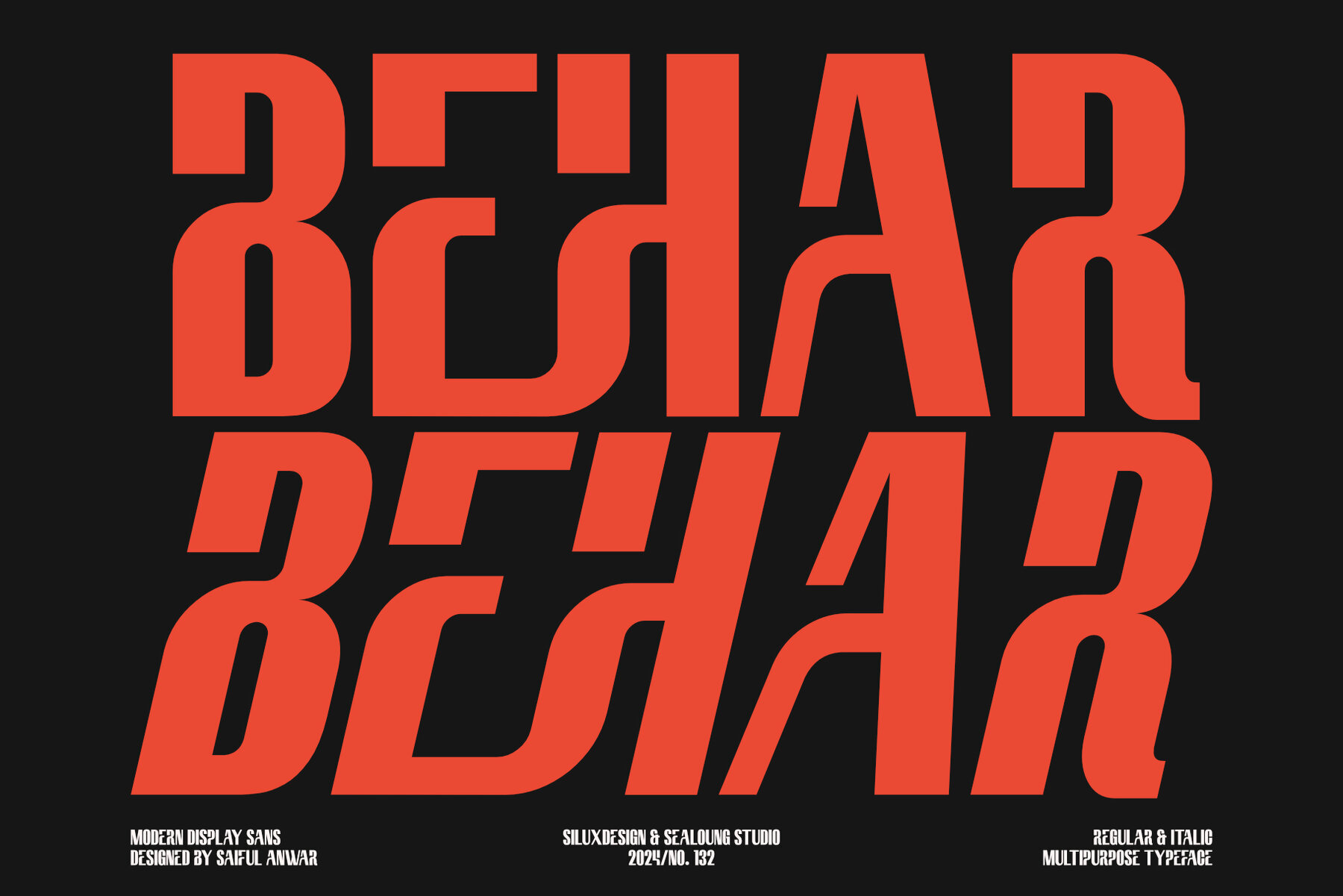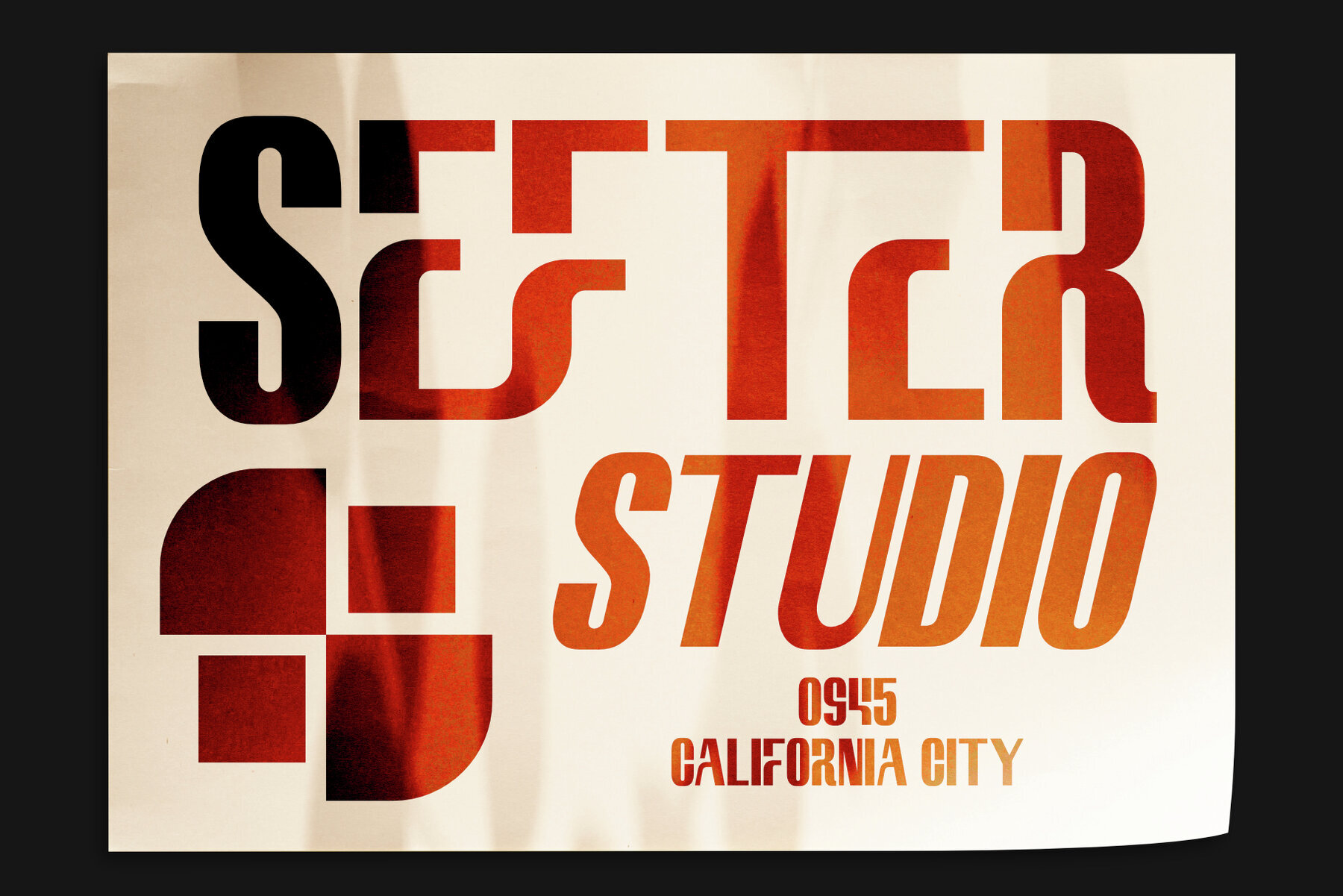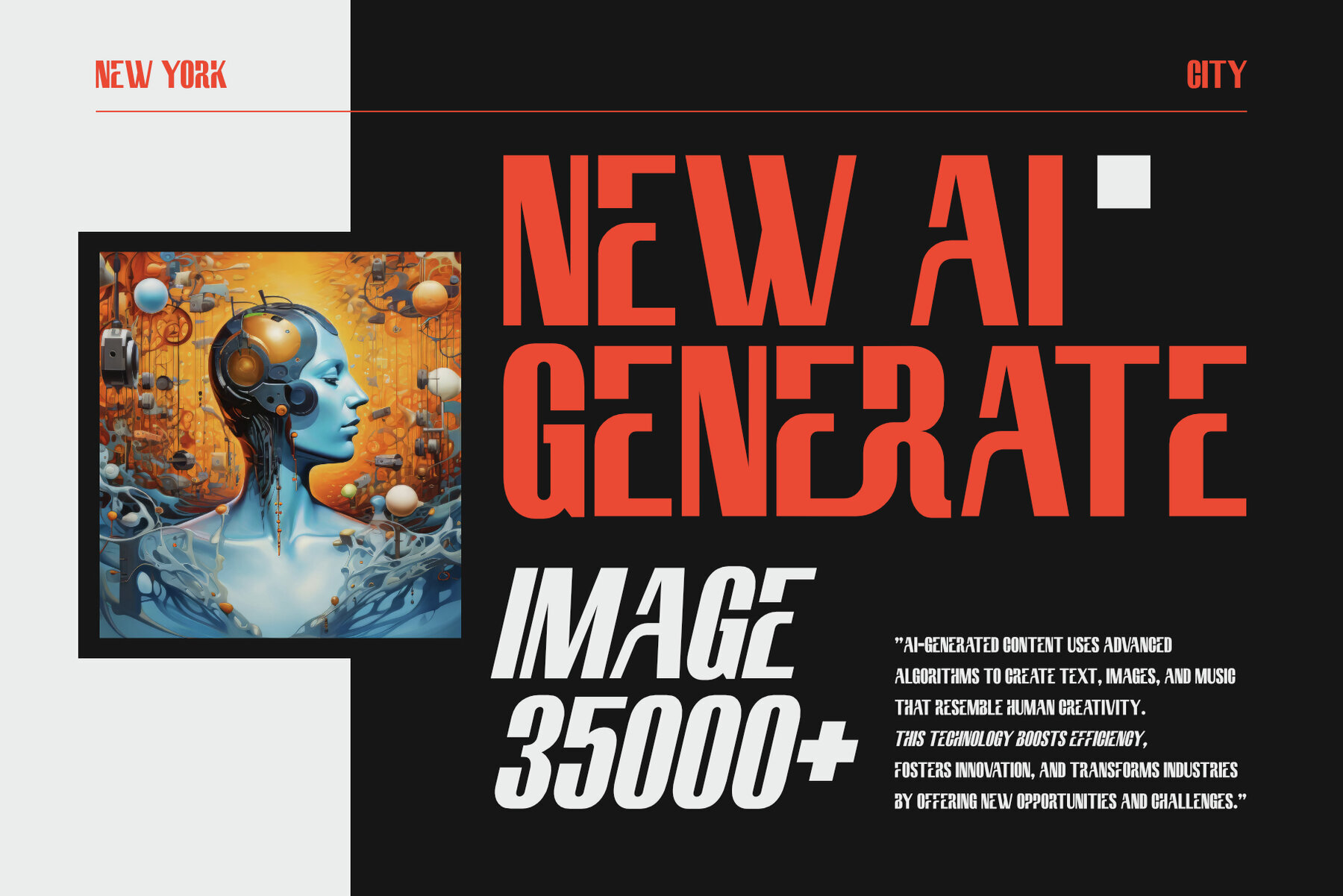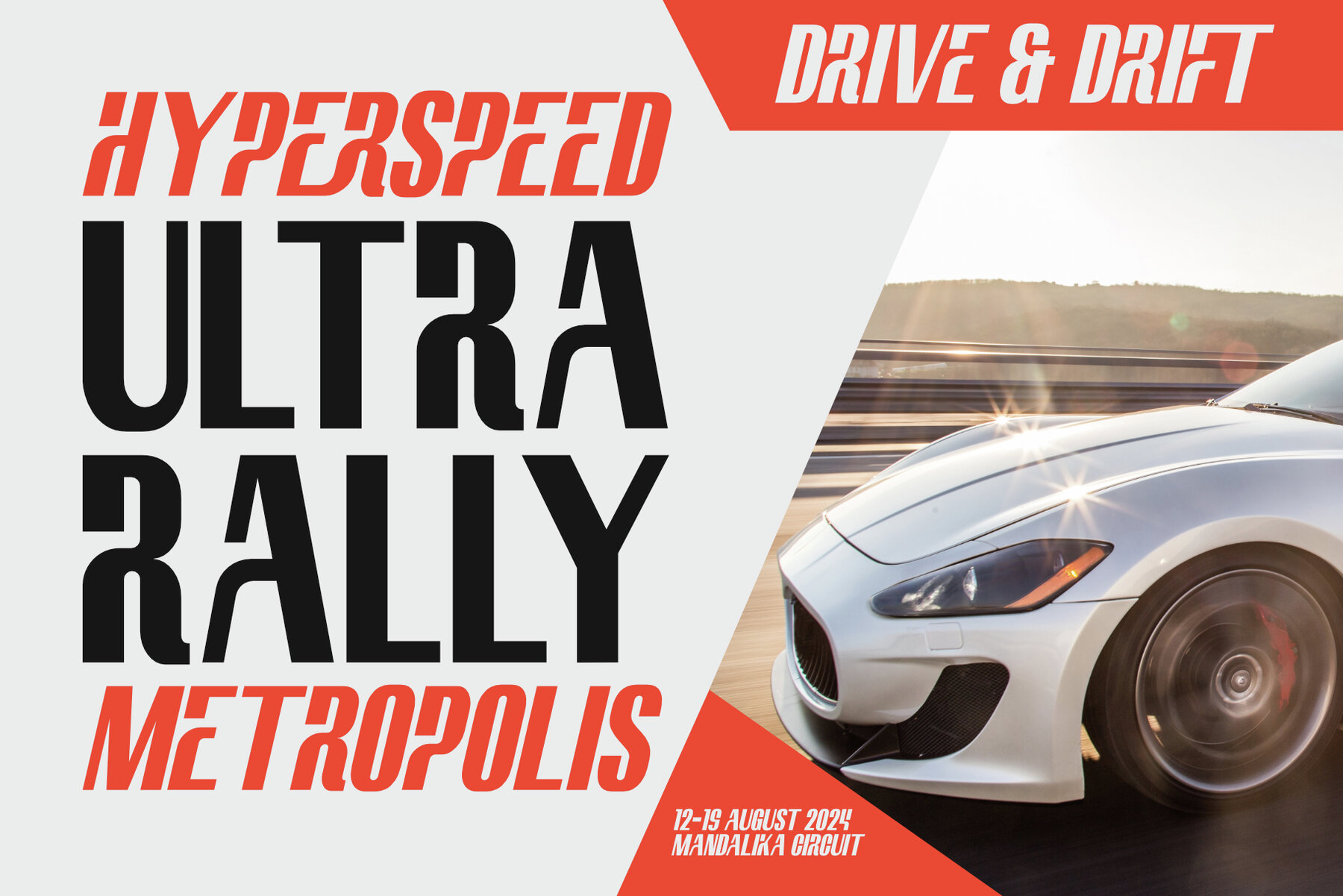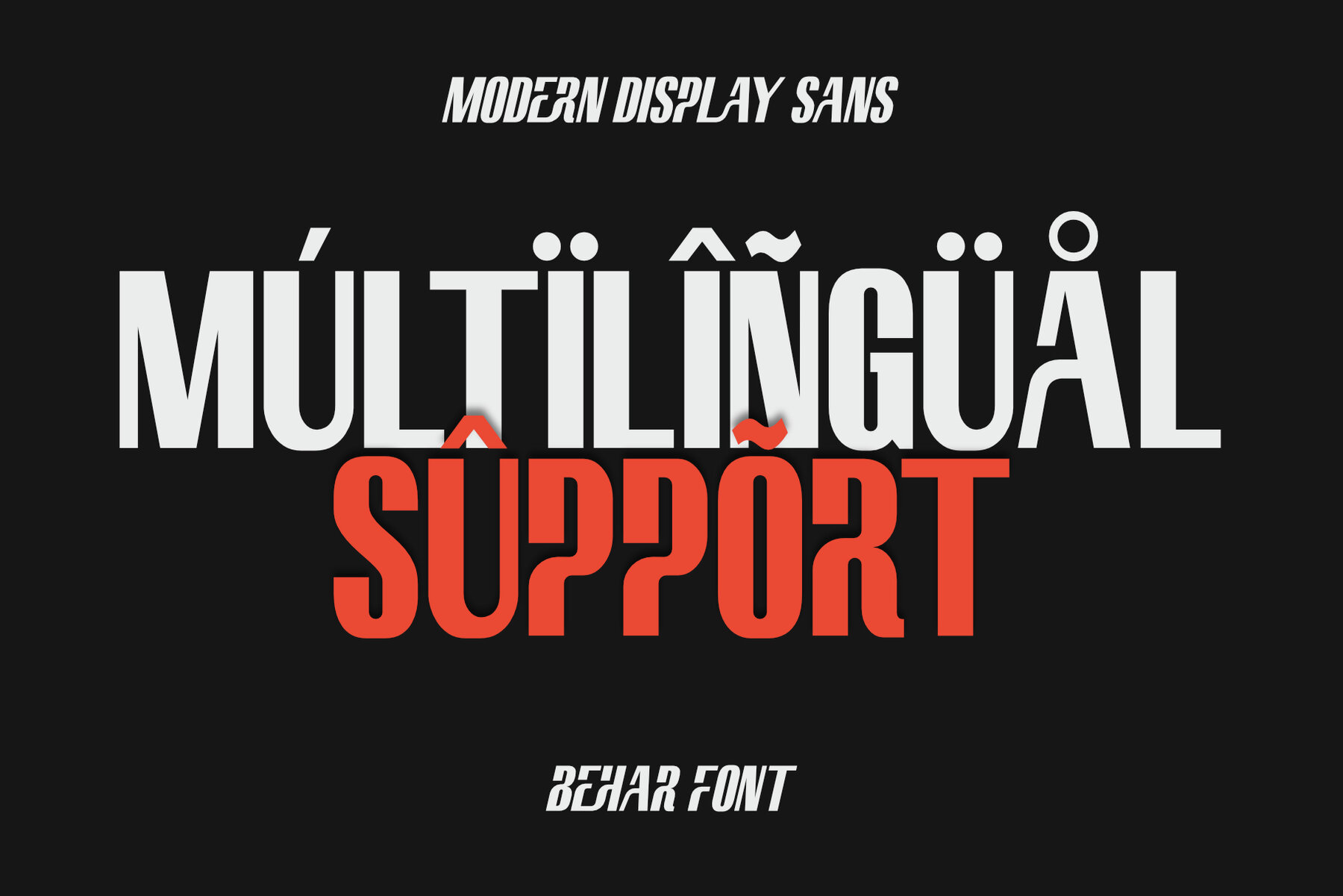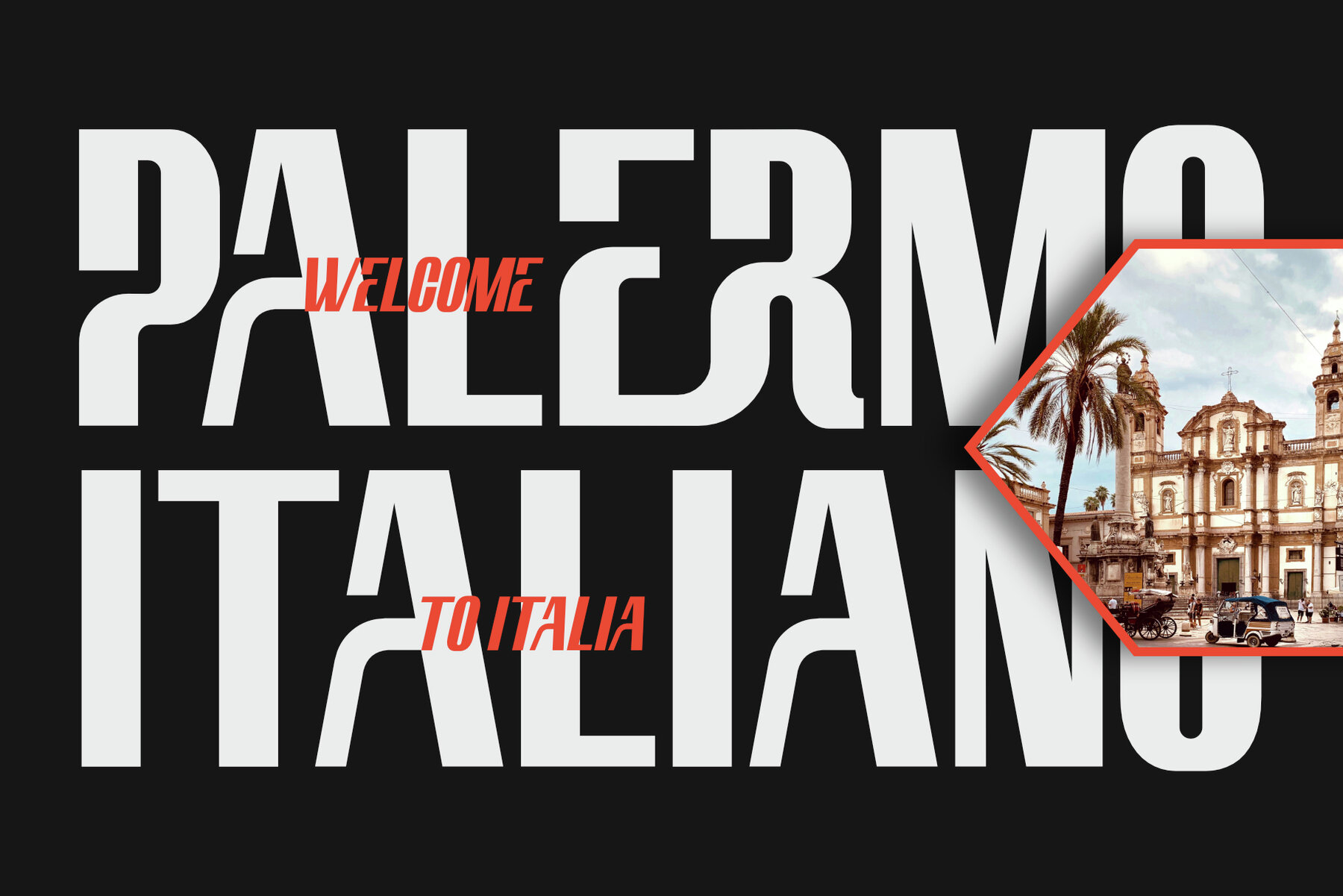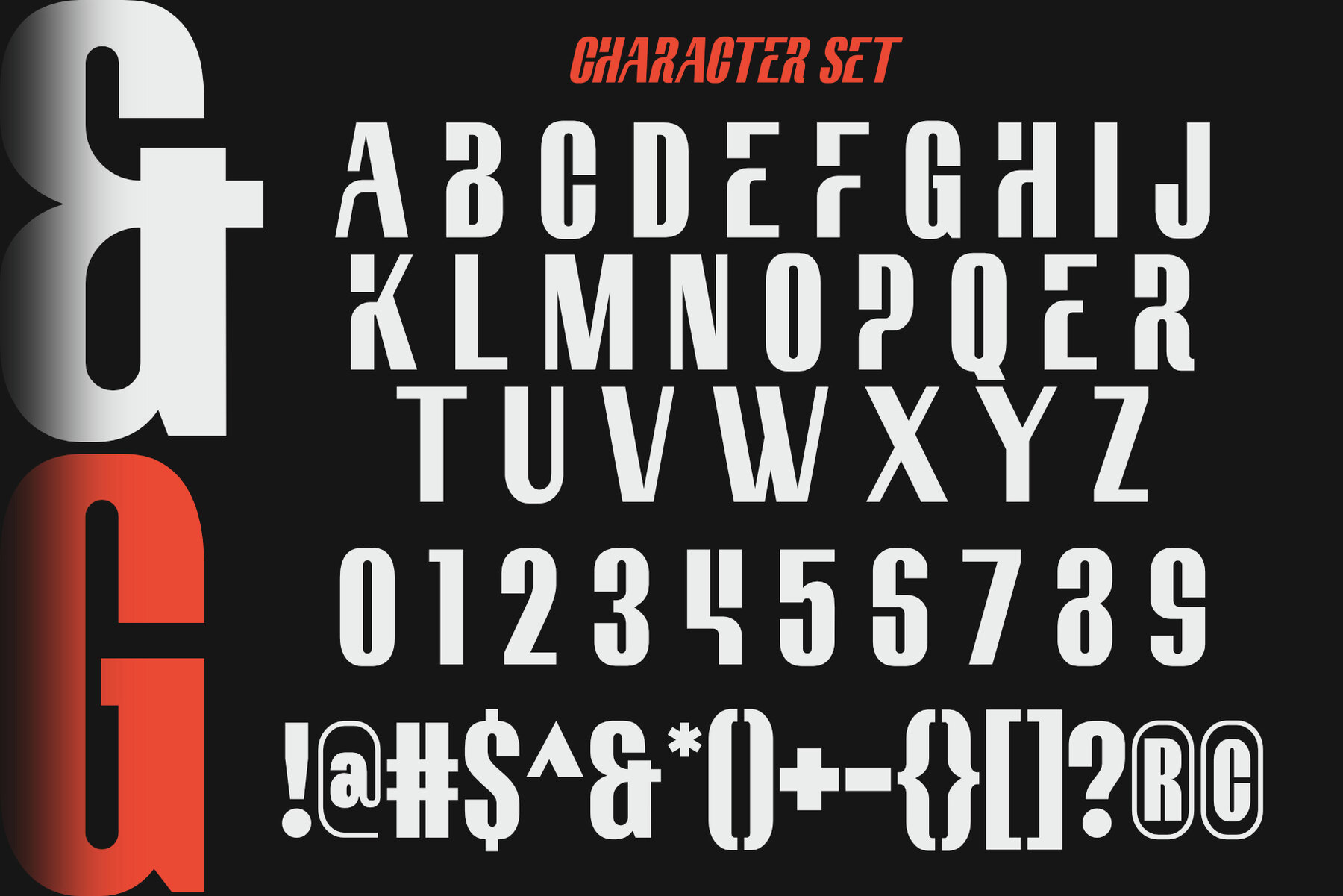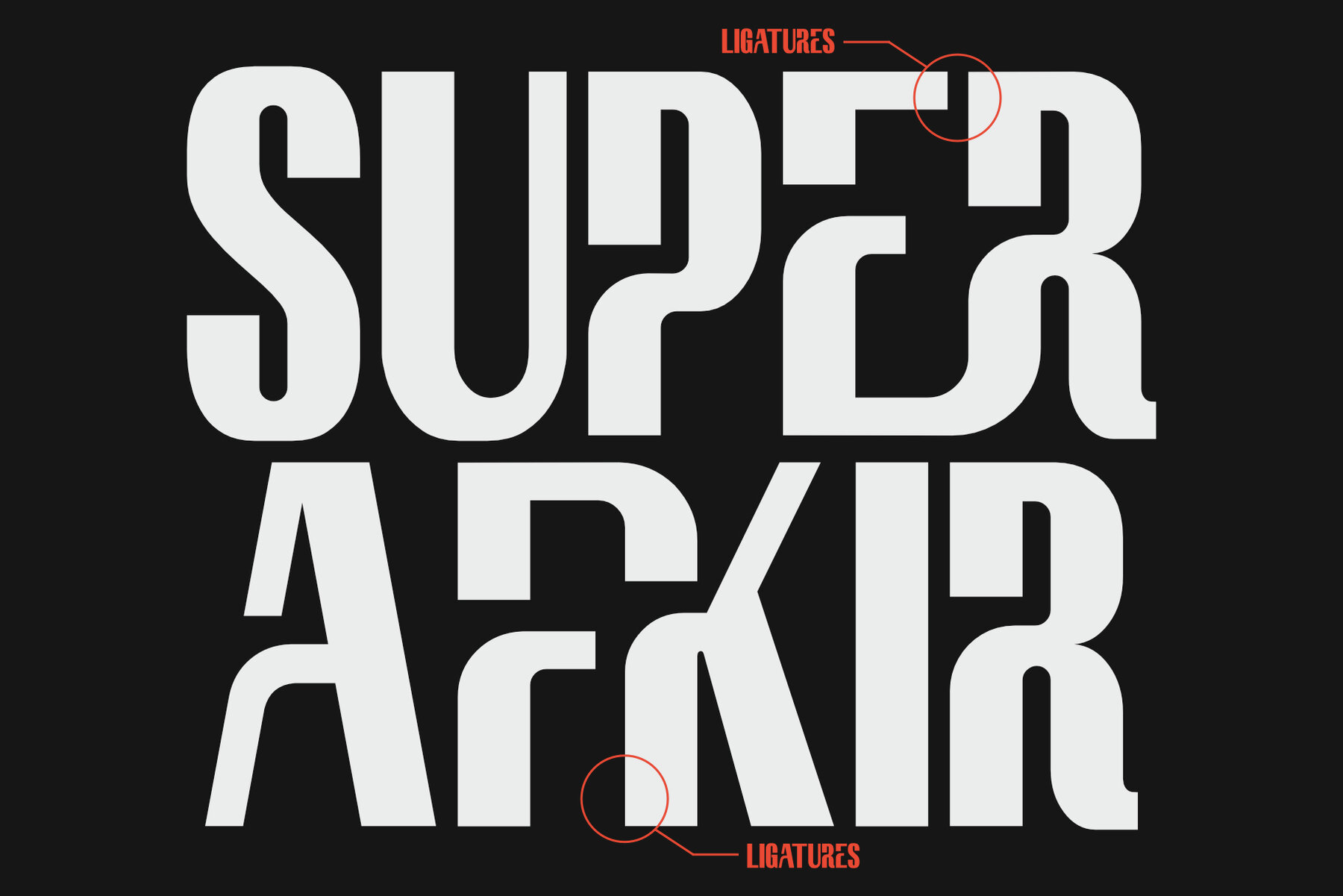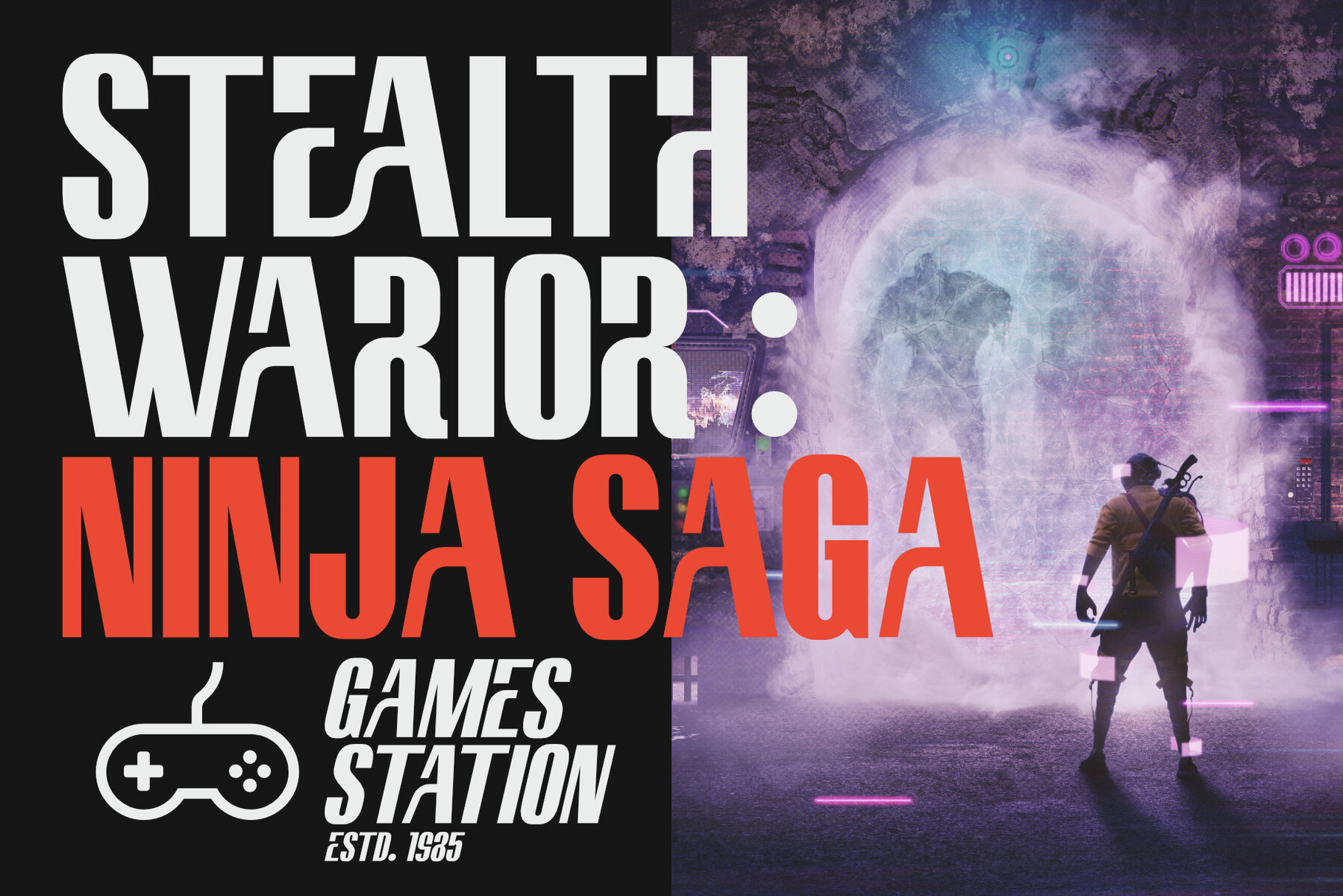
Behar Font
Behar is a modern display sans font that exudes sophistication and style. With sleek lines and a contemporary design, it is perfect for projects that demand a touch of elegance. Unique ligatures set Behar apart, seamlessly blending characters to create a harmonious, flowing look. Ideal for logos, headings, and other creative projects, Behar makes a distinctive statement.
In addition to its modern display style, Behar includes italic variants, providing versatility to your designs. Both the regular and italic versions maintain an elegant, sleek design, ideal for adding emphasis or style to your text. Behar supports multiple languages, making it suitable for diverse projects and audiences. Whether designing for English, French, Spanish, or other languages, Behar ensures readability and aesthetic appeal in various linguistic contexts.